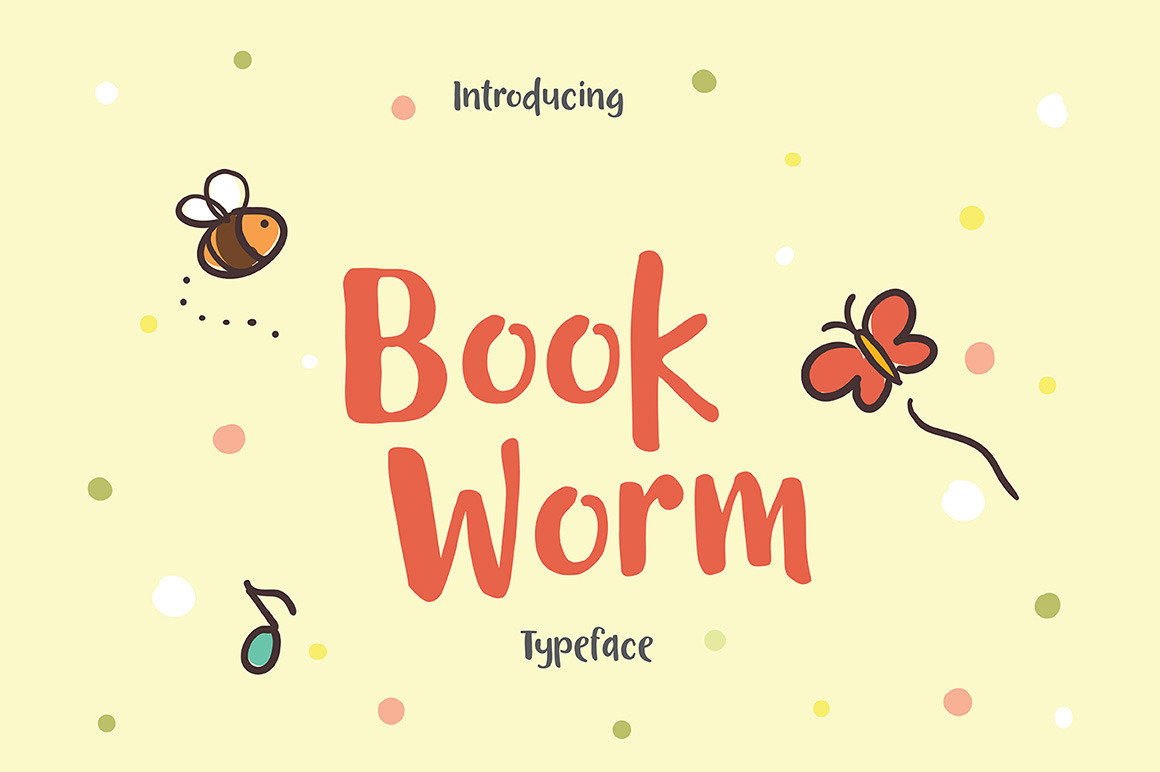
Book Worm Typeface
Introducing Book Worm!
A simple, fun and easy-to-read typeface.
Base on hand lettering with paintbrush, this typeface inspired by kids storybook. This typeface add more fun in reading a book with this easy-to-read & playful characters. Including simple ligatures, number & punctuation, this typeface can be use for quotes, title, and also body text.
This font just fills you with joy when you design with it. It's so fun and cutesy it is ideal for all child like designs and especially for birthday invites! We love this happy-go-lucky typeface and can't wait to see what you do with Book Worm!